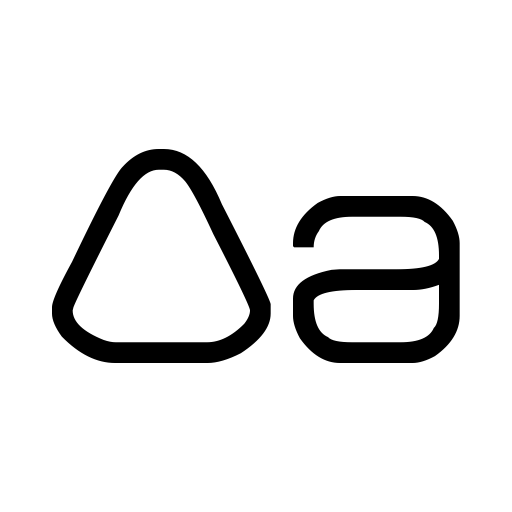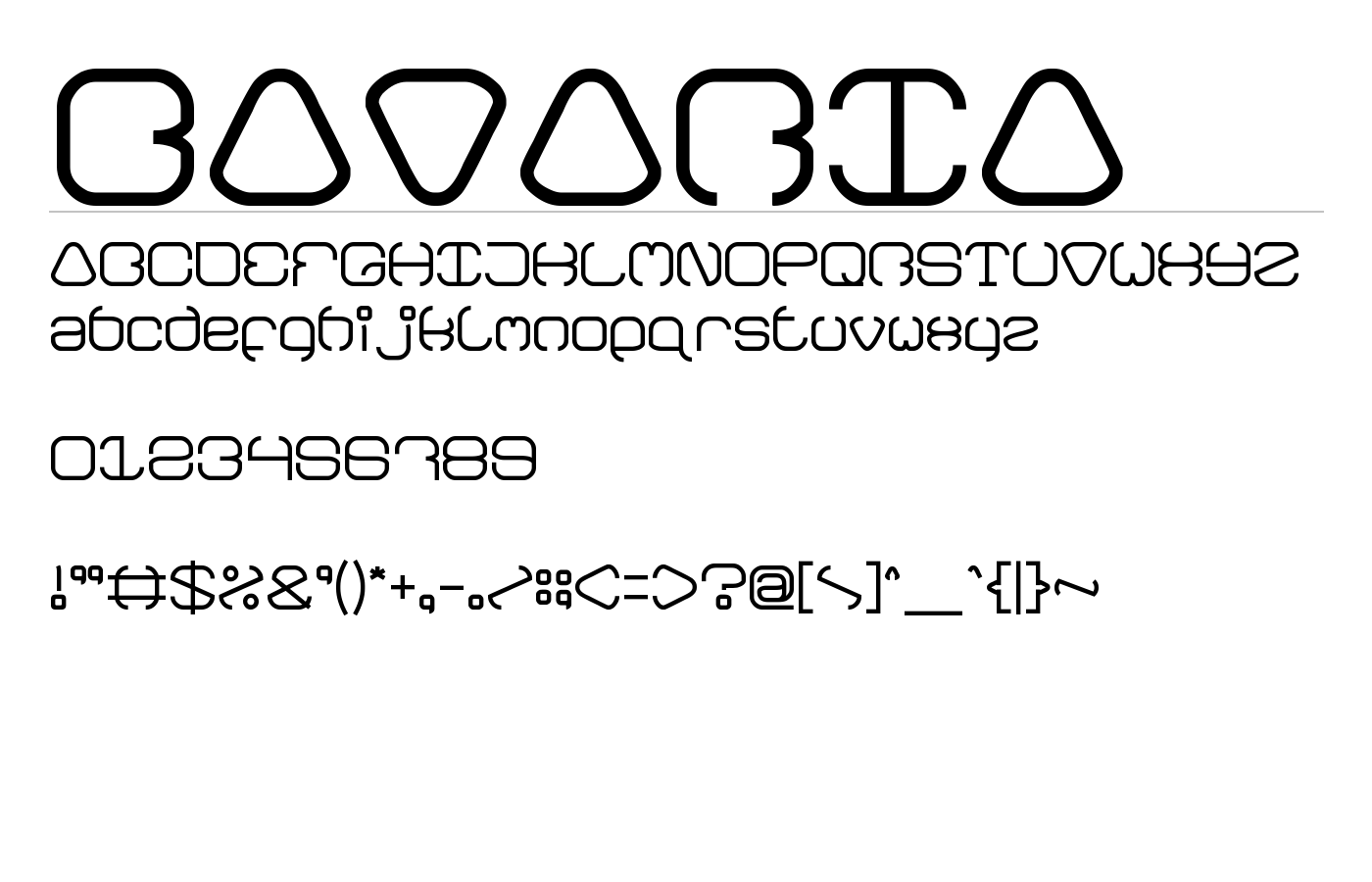
BAVARIA is a modern, geometric sans serif font with a distinctive futuristic vibe, featuring rounded corners and clean, monoline strokes that create an airy and open feel. Its unique letterforms, such as the stylized 'A' and curved terminals, lend it a playful yet sophisticated personality, making it a great choice for tech, branding, and creative projects. This font works well for headlines and logos where a modern, innovative impression is desired.
BAVARIA Font
About BAVARIA Font